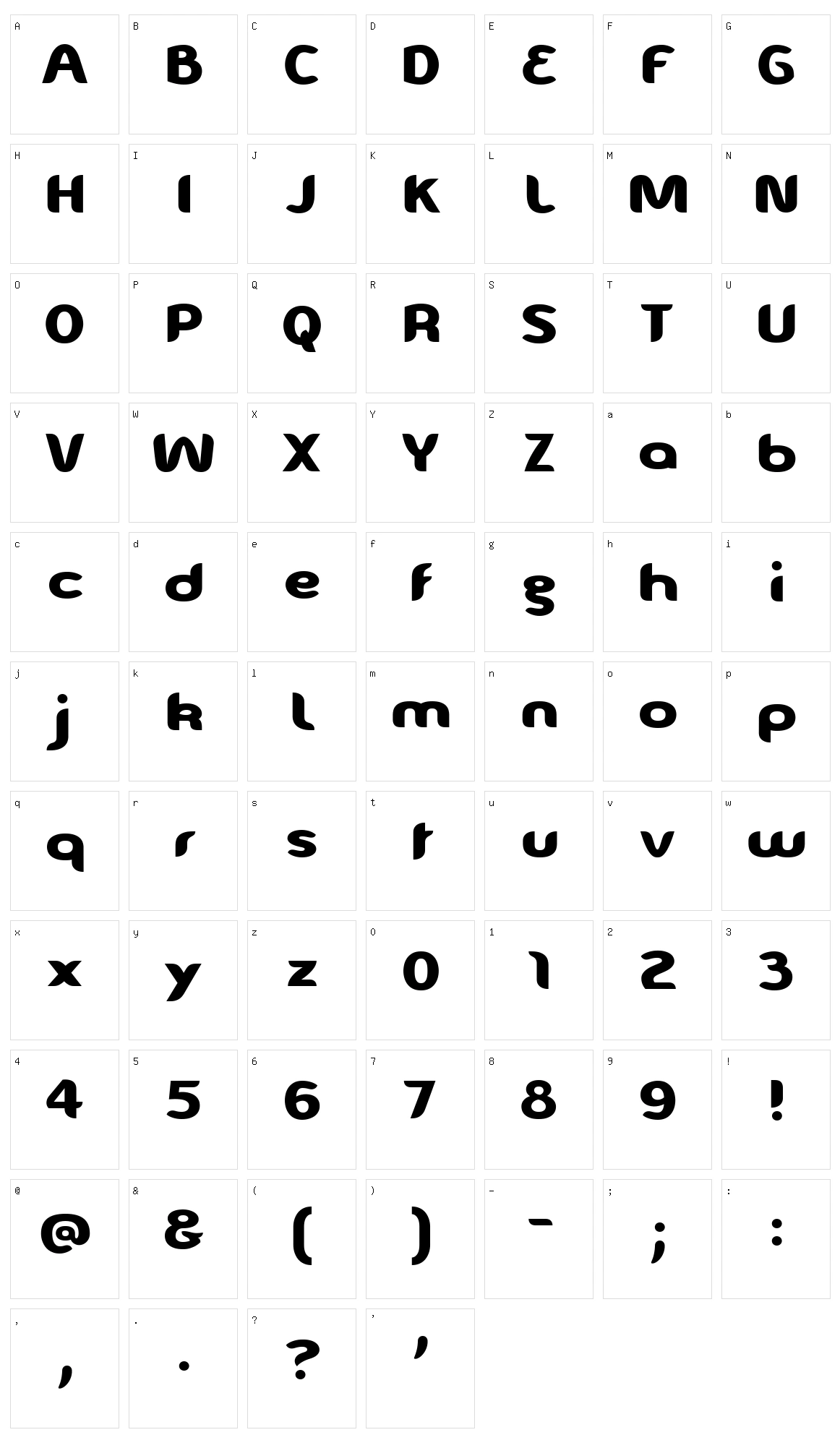
The free font Eve-Isabelle is carefully designed by Beno?t Sj?holm, showcasing a thoughtful balance of creativity and usability and falls under the Sans serif font style. When you download the ZIP file, it contains only 20.58 KB of font files, making it lightweight and quick to download. Please review the license details below to understand permitted usage and distribution rights. If license information is not available, we recommend using this font for personal projects only or contacting the author directly for commercial usage permissions.